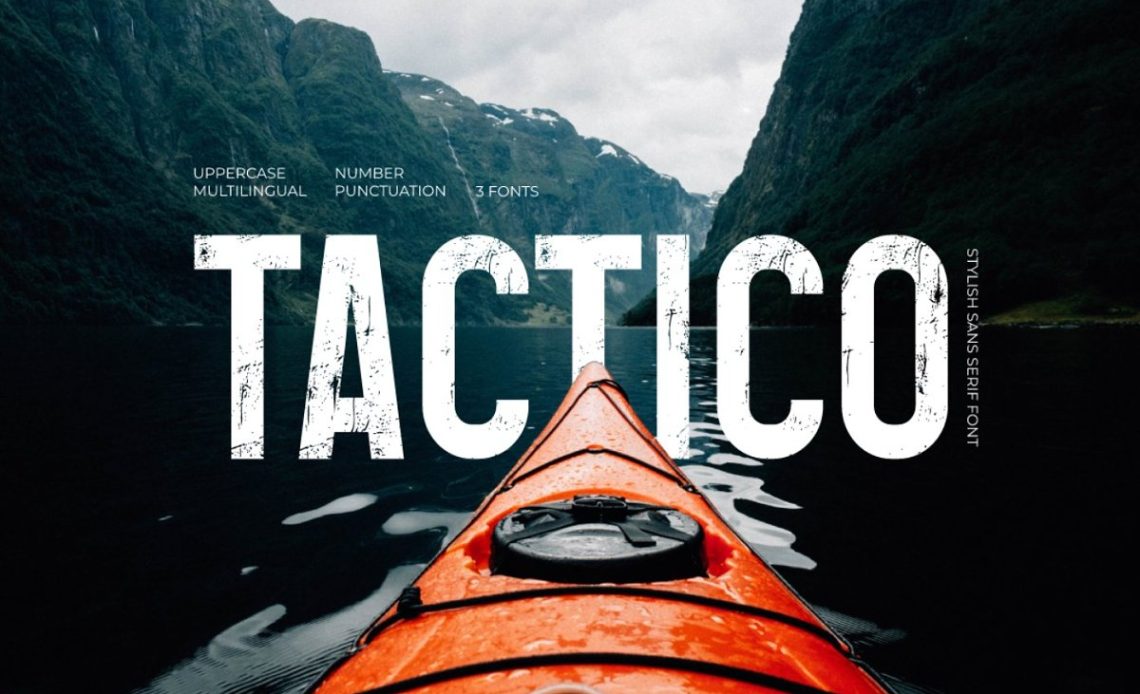
Introducing Tactico Distressed Sans Serif Font, the Best Font for Blogging Brands!
Looking for the perfect font to elevate your brand's image? Look no further than Tactico, created by the talented Aswangga Aswangga. This all caps sans serif font comes with three amazing variations - Regular, Bold, and Grunge/Distressed - making it a versatile option for a wide range of design projects.
One of the best features of Tactico is its multilingual glyphs, which make it ideal for brands with a global presence. You can use Tactico with Adobe Illustrator, Adobe Photoshop, Adobe InDesign, and even Microsoft Word, making it a go-to font for all your design needs.
But what really sets Tactico apart is its ability to evoke emotion in your brand. Whether you're looking for a sleek and modern feel or a vintage and distressed aesthetic, Tactico has got you covered. Its eye-catching and unique design is sure to leave a lasting impression on your audience.